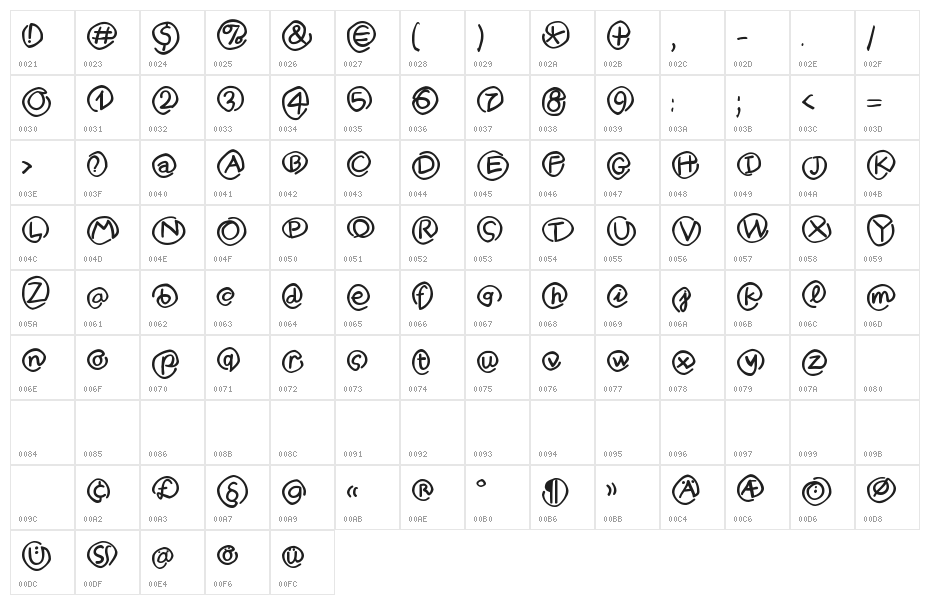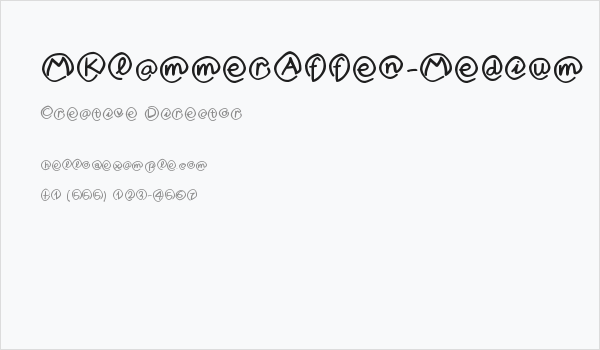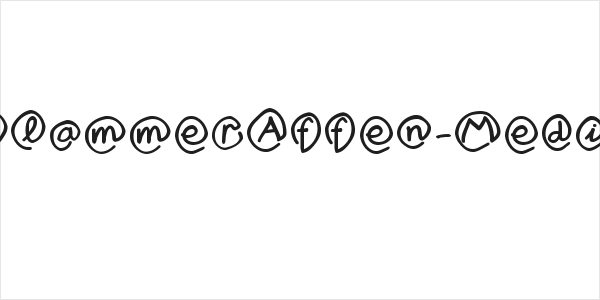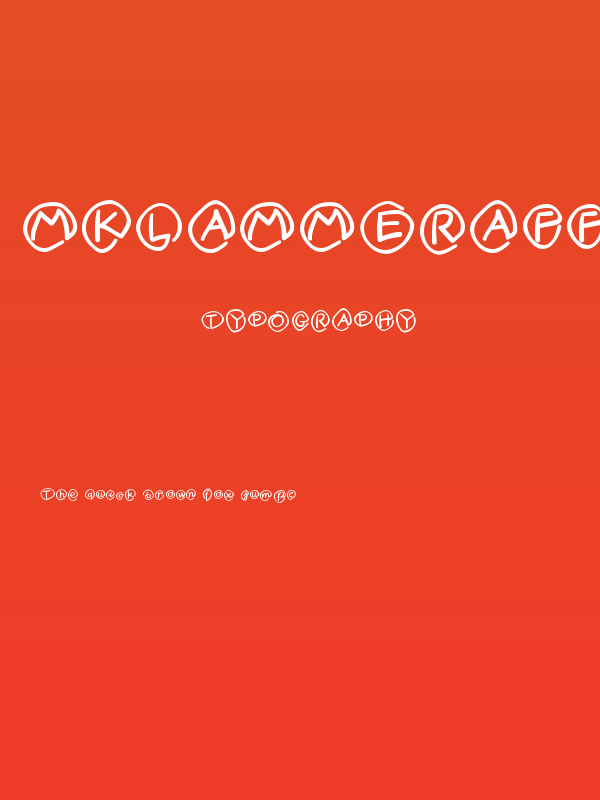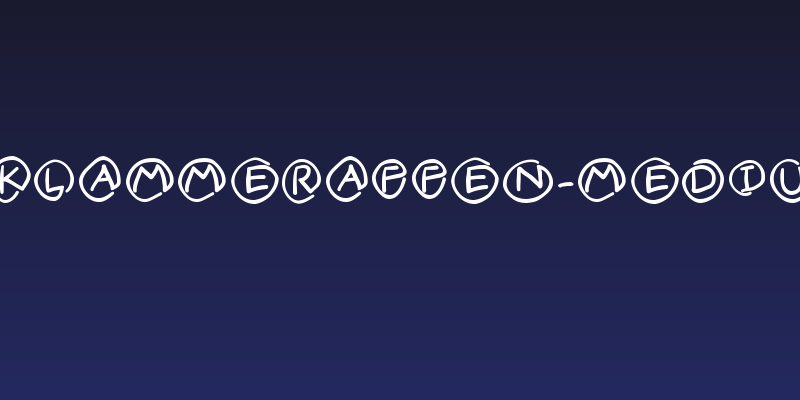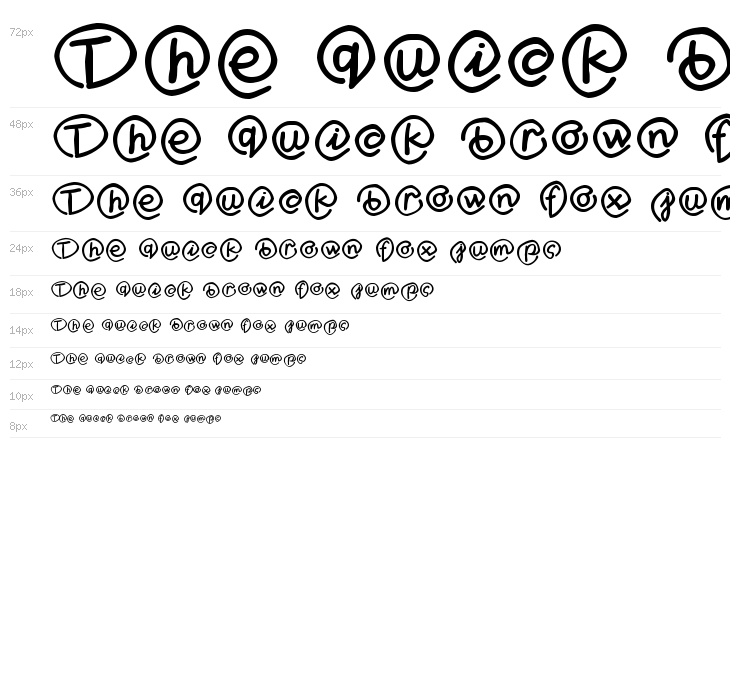
MKlammerAffen-Medium Font
MKlammerAffen-Medium Description
This playful and unique font features characters enclosed in circular shapes, giving it a whimsical and informal appearance. The letters are bold and rounded, with a hand-drawn quality that adds a touch of creativity and fun. Each character is distinct, with a consistent circular enclosure that unifies the overall look. The font includes both uppercase and lowercase letters, numbers, and a variety of special characters, making it versatile for different design needs. Its bold strokes and enclosed style make it stand out, perfect for projects that require a distinctive and lively typeface.
| Proposed Projects | Ideal for children's books, playful branding, creative posters, and informal invitations. |